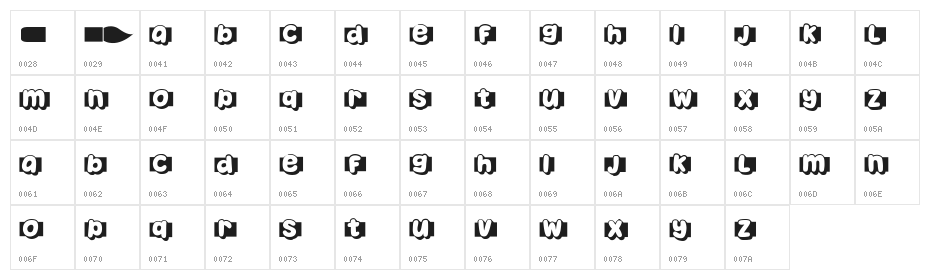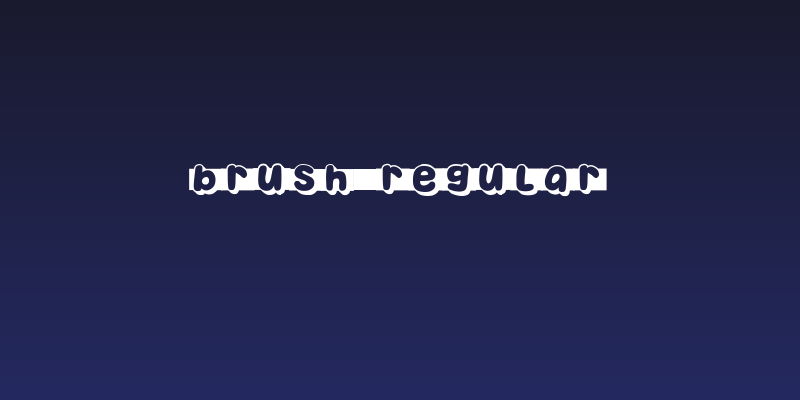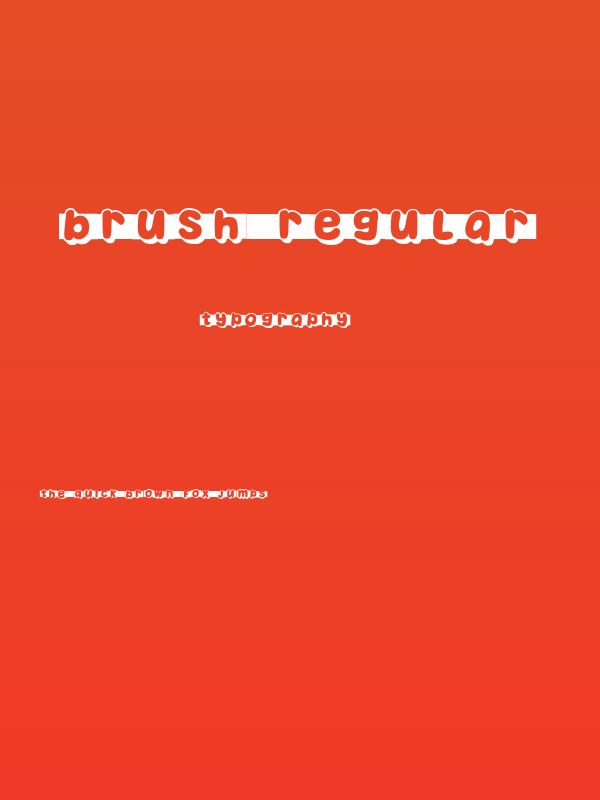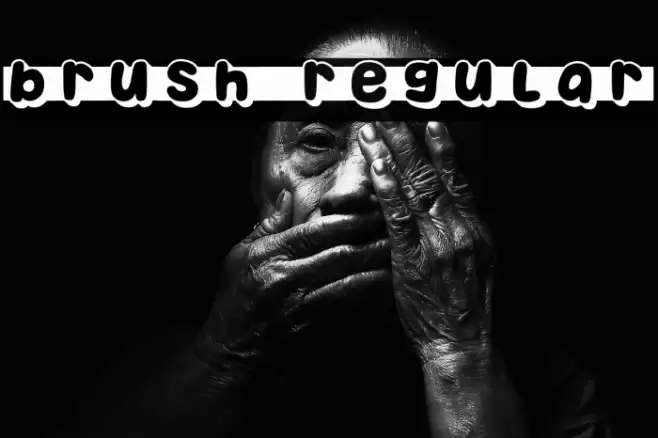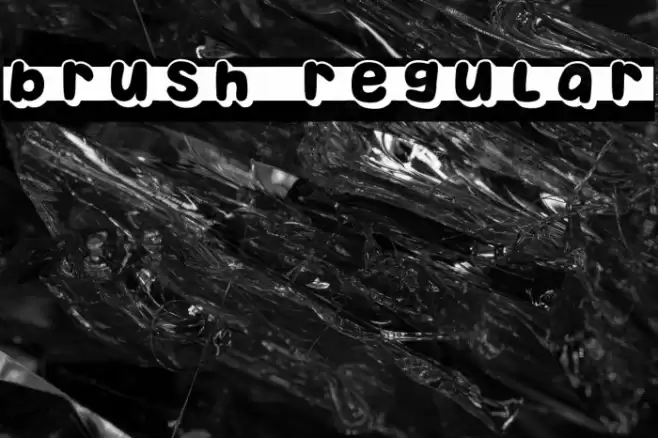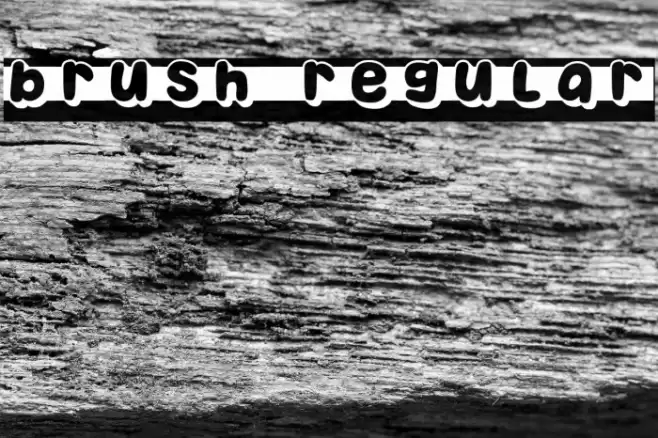
Brush Regular Font
Brush Regular Description
This playful and bold font features a brush-like style with rounded edges and a thick, consistent stroke. The characters are designed with a whimsical touch, giving them a lively and dynamic appearance. The font maintains a uniform weight throughout, providing a cohesive look. Its unique style makes it stand out, with each letter appearing as if it has been hand-painted. The font's design is both modern and artistic, making it suitable for creative projects that require a touch of personality and flair.
| Overall Style | Playful, Artistic |
| Proposed Projects | Ideal for children's books, playful branding, creative posters, and artistic invitations. |